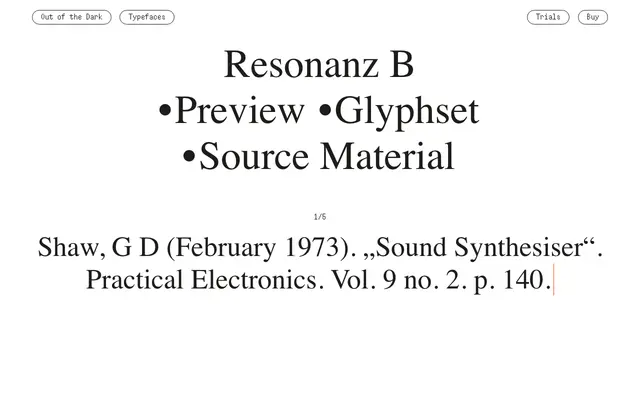
Resonanz B
A six-weight display sans from Swiss foundry Out of the Dark, forming the B variant of the Resonanz family alongside Resonanz A.
Resonanz B is one half of a paired family, running from Regular through to Black across six weights with no italic complement. Out of the Dark situates the design within a broader catalogue of experimental and visually driven typefaces, drawing on references that include early 1970s electronics culture. The source material credit to a 1973 Practical Electronics article on sound synthesis suggests the design takes conceptual cues from analogue signal and waveform aesthetics.
The limited style count, foundry context of experimental and display-oriented typefaces, and lack of italic suggest a display-focused sans with a distinctive character rather than a workhorse text family.